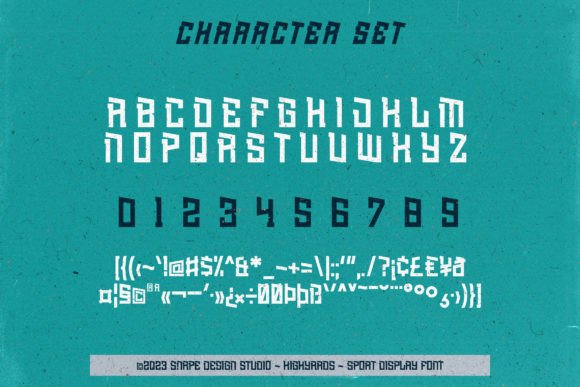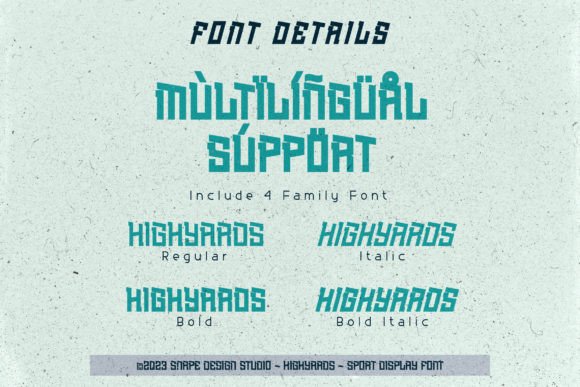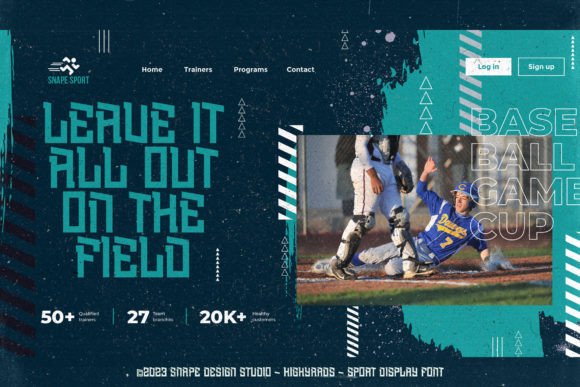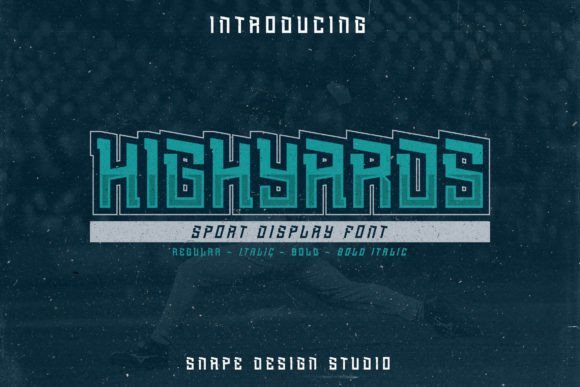
Highyards is an attractive and sporting display font with tall, sharp letterforms and a sleek, modern look.
It’s perfect for project ideas that need to stand out and make an impact .
Highyards Font offers exceptional quality and versatility, making it a valuable addition to your design toolkit. Whether you’re creating for personal projects or commercial use, Highyards Font delivers professional results.